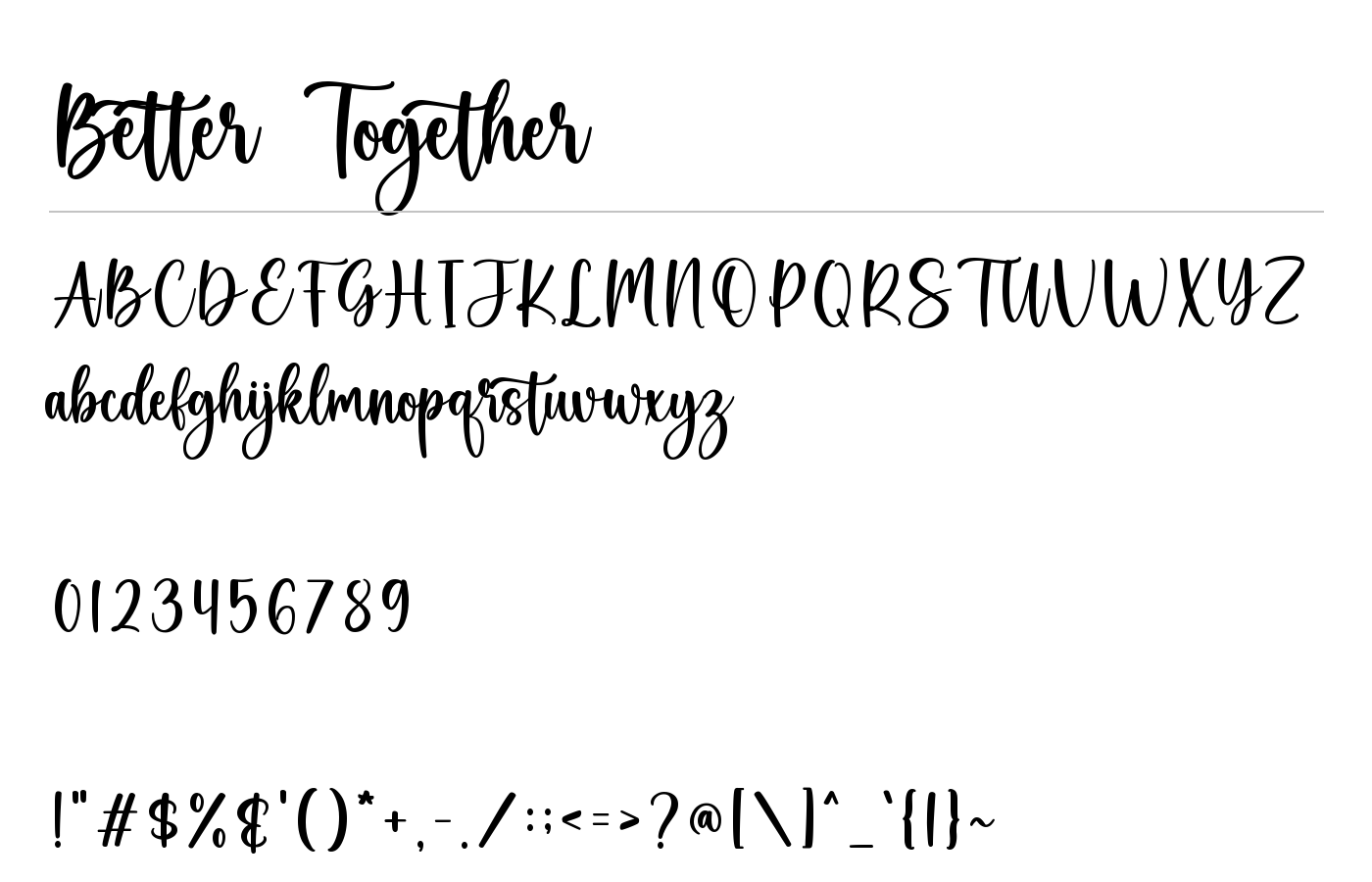
Better Together Font is a charming, handwritten script with a friendly and elegant vibe, featuring smooth, flowing letterforms that balance casual warmth and refined style. Its moderate weight and balanced contrast make it perfect for personal branding, wedding invitations, and creative projects where a welcoming yet stylish touch is desired. This font excels in headlines and logo designs, adding a playful yet sophisticated personality that connects well with audiences seeking authenticity and charm.
Better Together Font
About Better Together Font